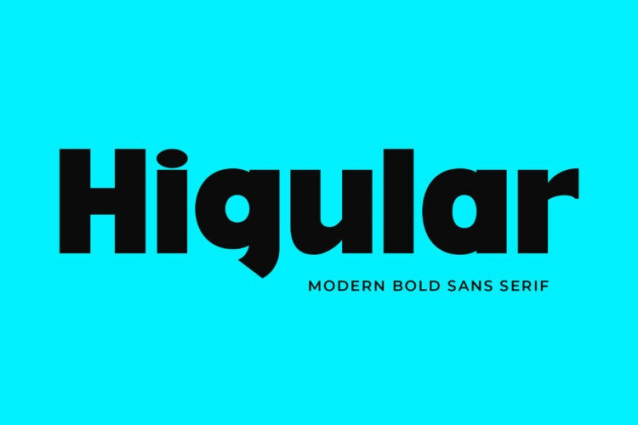
Higular Font
Higular Font, modern sans serif font with elegant style this is perfect for branding, logos, invitation, magazines, product packaging and more.